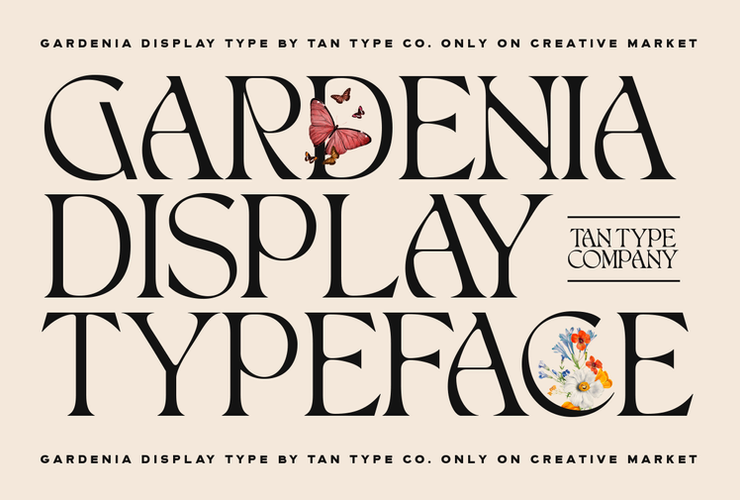
About TAN GARDENIA
TAN-GARDENIA is a display typeface based on classic serif with a contemporary twist. It’s fun but still maintains the elegant shapes making it perfect for branding and other of your design needs.